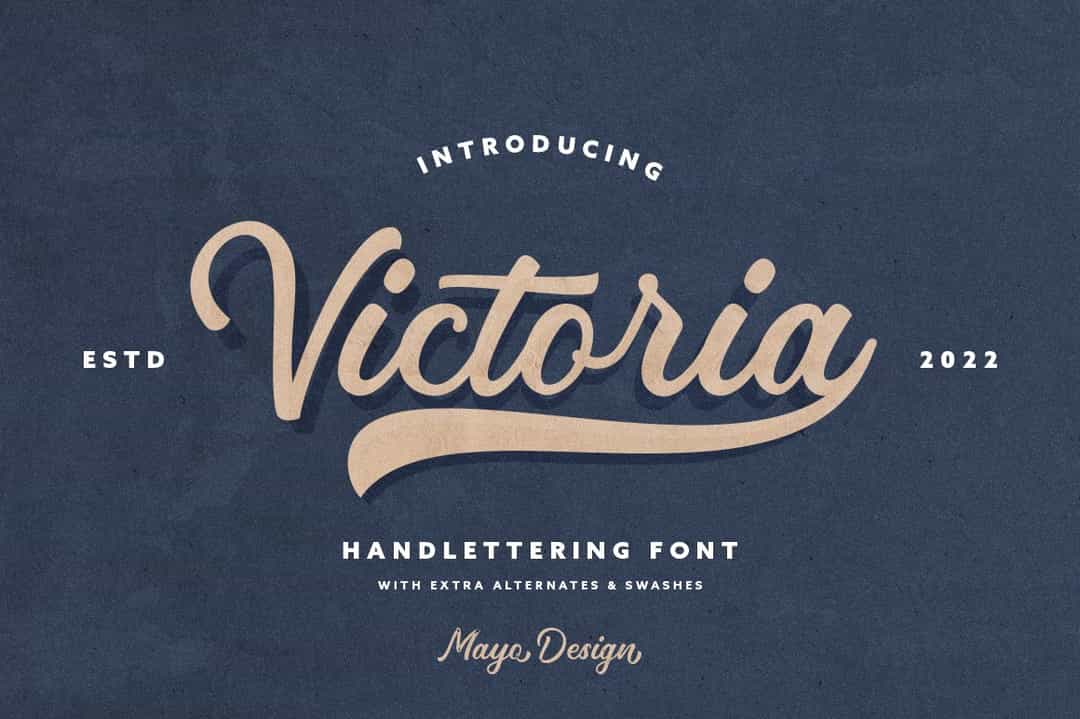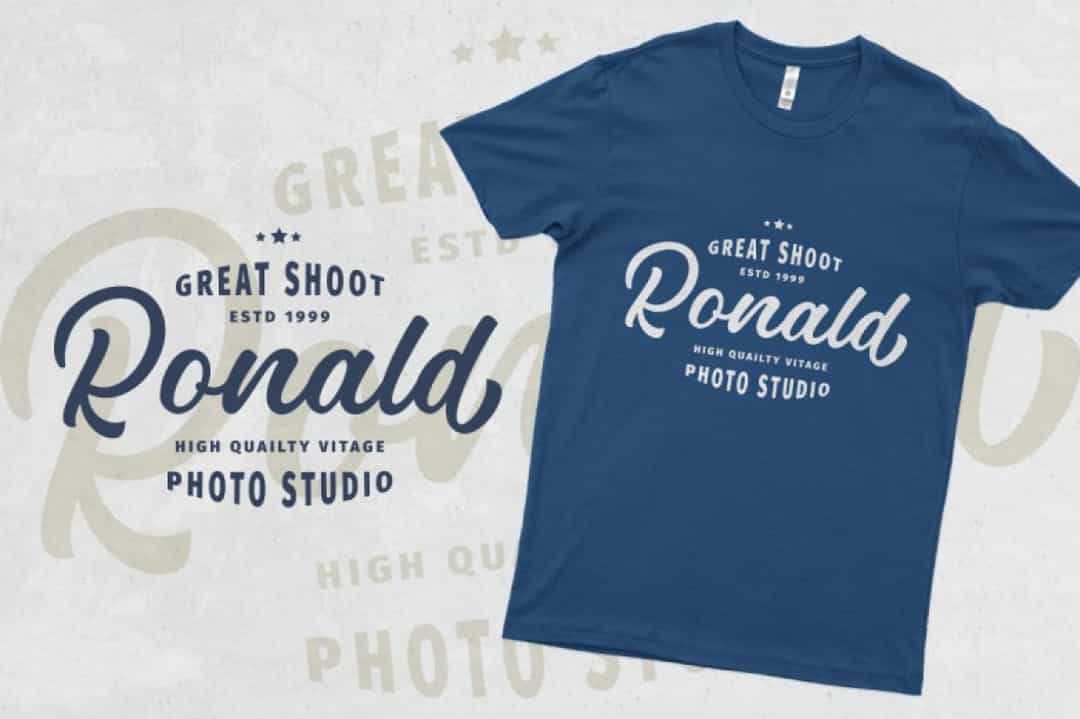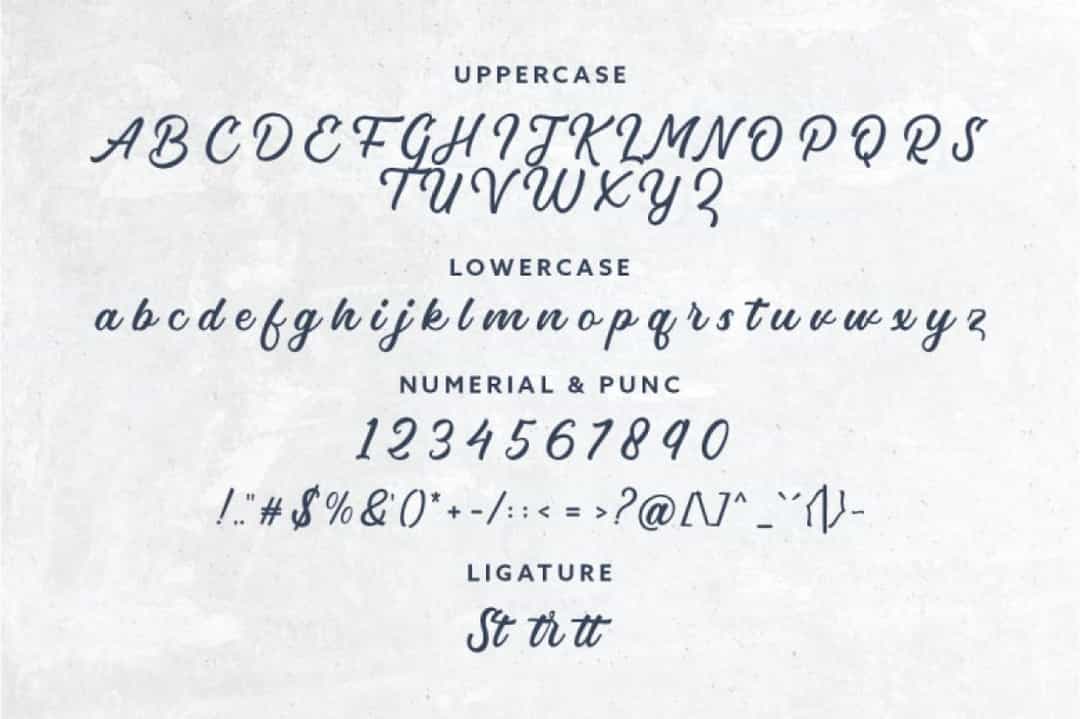
Victoria can be described as an opentype calligraphy script font with wide application potential. Victoria can be utilized in projects as diverse as branding, logo design and poster creation for promotions as well as packaging of products for merchandise distribution and social media advertising; among many more!